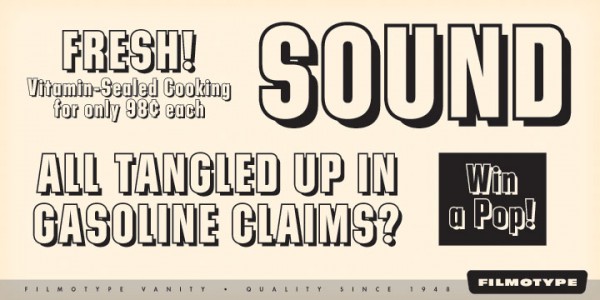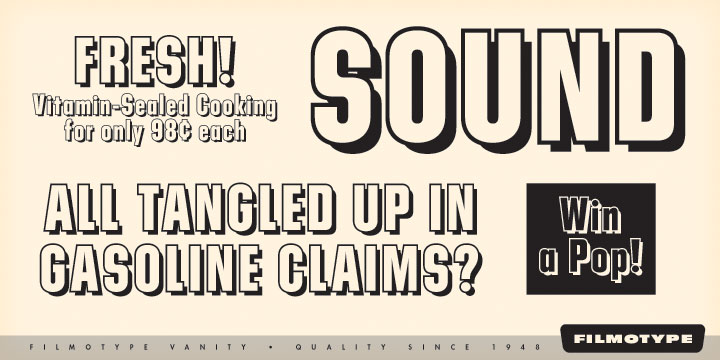
Filmotype Vanity is an exquisite font which precisely marks the inauguration of effect style Outline fonts of Filmotype. Incidentally, all of these start with the letter V. Originally, the font was developed from the original Filmotype Ginger typeface. During the 1950s, the technology was not advanced enough to develop drop-shadowed or outlined styled fonts. This wasn’t really possible for the old Filmotype machine. Hence, each letter was originally painstakingly hand rendered and redrawn to acquire this special effect style. It is quite similar to its countepart Filmotype Ginger.
Hence, it circumscribes a full international character compliment, ordinals, automatic fractionals, an all CAPS setting, and a entire suite of alternates in dynamic OpenType format.